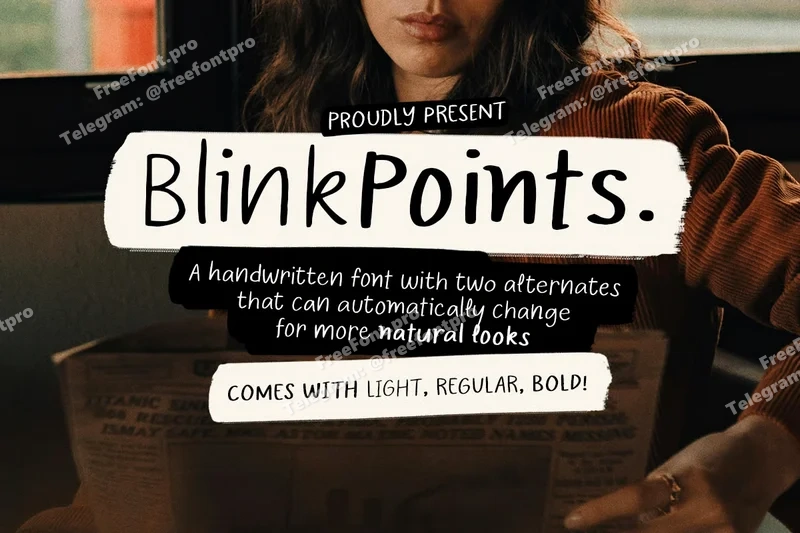
Blink Points – Quote Font Family
Blink Points is a handwritten quote font family with Light, Regular, and Bold style. It features three variations for each character that automatically change when you activated the Contextual Alternates in OpenType features in Adobe Photoshop or Illustrator. This will make your text or design looks more natural, handwritten appearance. And you will get OTF/TTF file that you can install and use in any software designs especially Adobe Photoshop and Adobe Illustrator. Additionally, this font supports multiple languages!